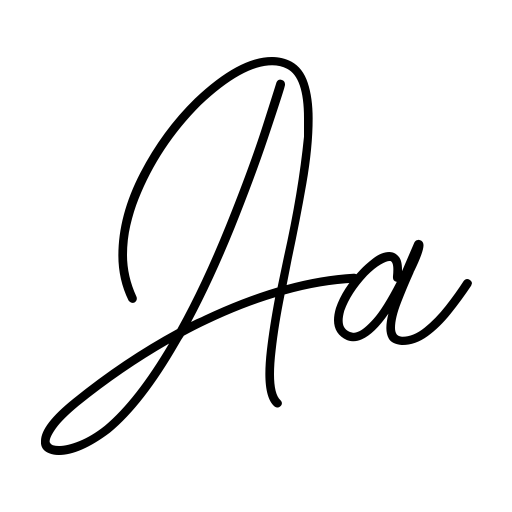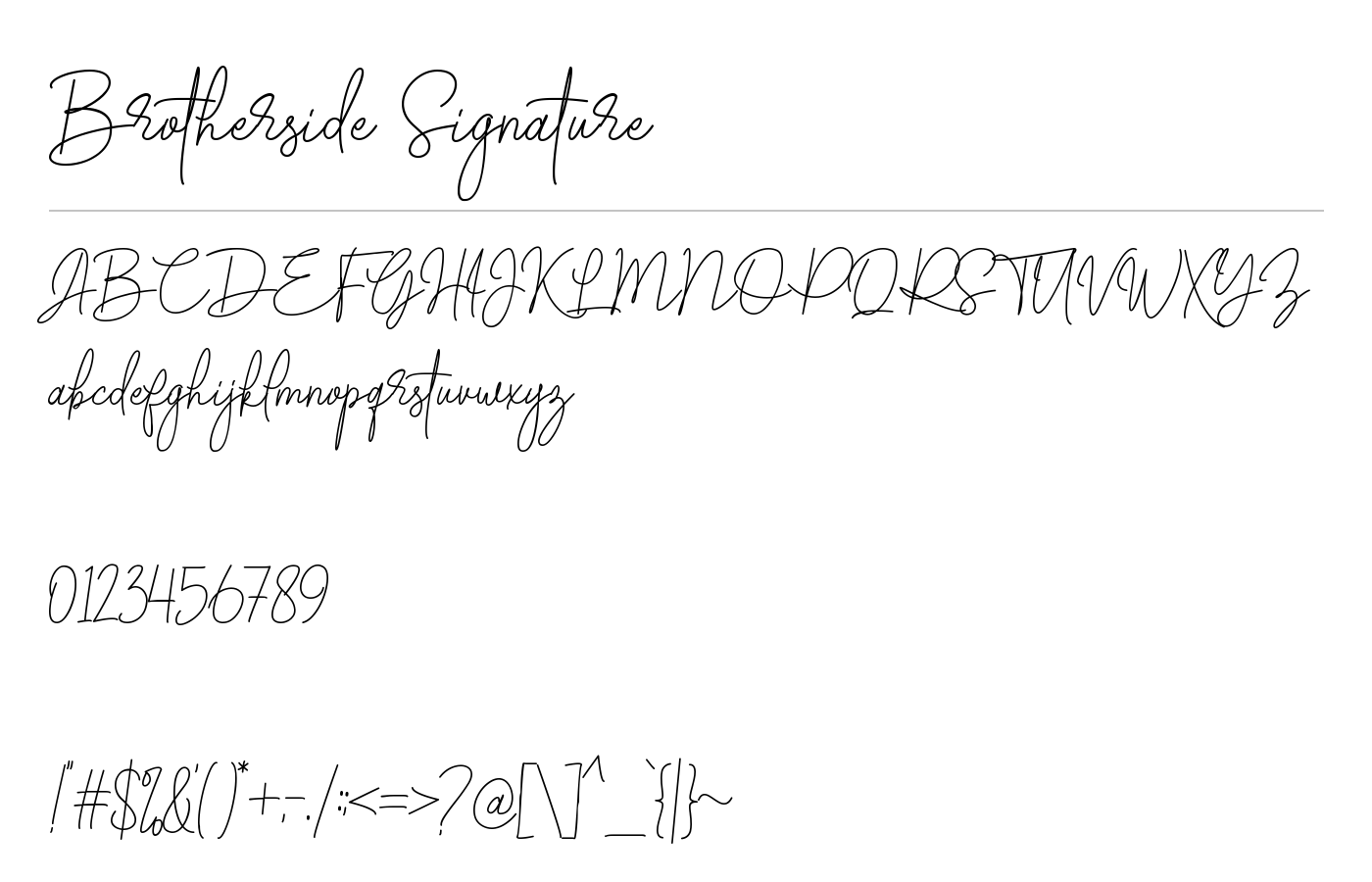
Brotherside Signature is a slender, elegant script font that mimics natural, flowing handwriting with a delicate and airy feel. Its tall, narrow letterforms and smooth, continuous strokes make it ideal for adding a personal, sophisticated touch to branding, invitations, and stylish logos. This font perfectly suits projects seeking a refined yet approachable handwritten aesthetic.
Brotherside Signature Font
About Brotherside Signature Font
| Font family | Brotherside Signature Font |
| Designer | Icep Anwar Fadhil |
| Trademark | Figuree Studio |